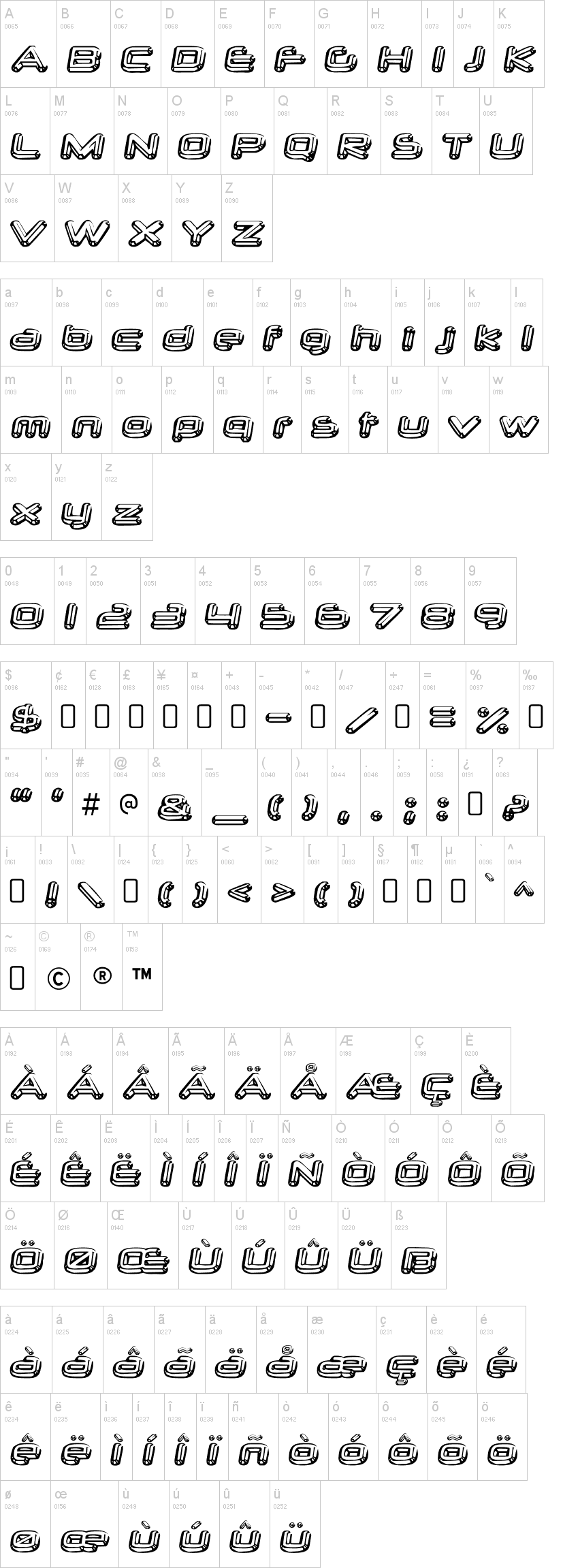
Шрифт Neurochrome
Neurochrome is Neuropol with a shimmering chrome effect. Don't forget to read the files inside the zip for details. Updated in 2012.